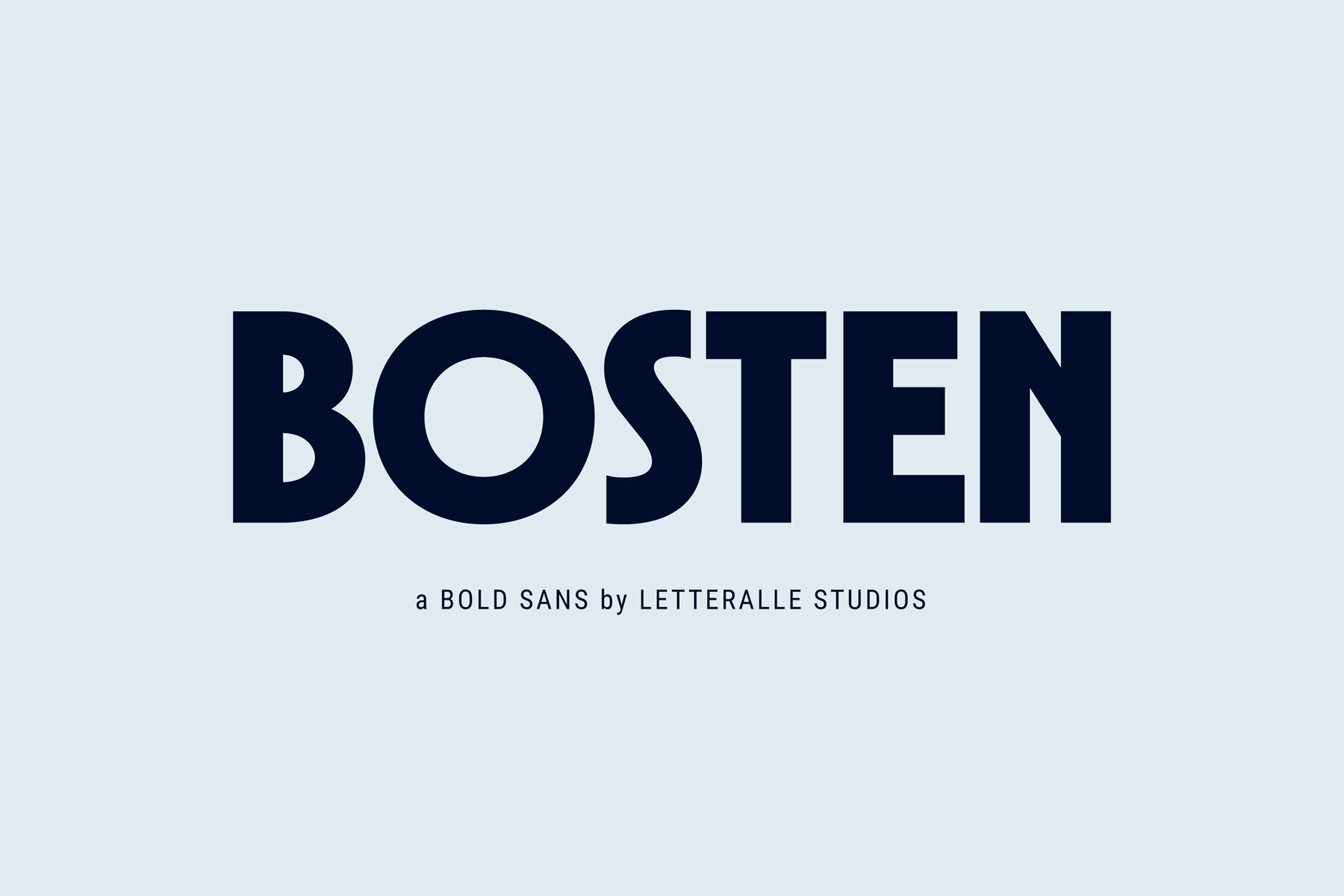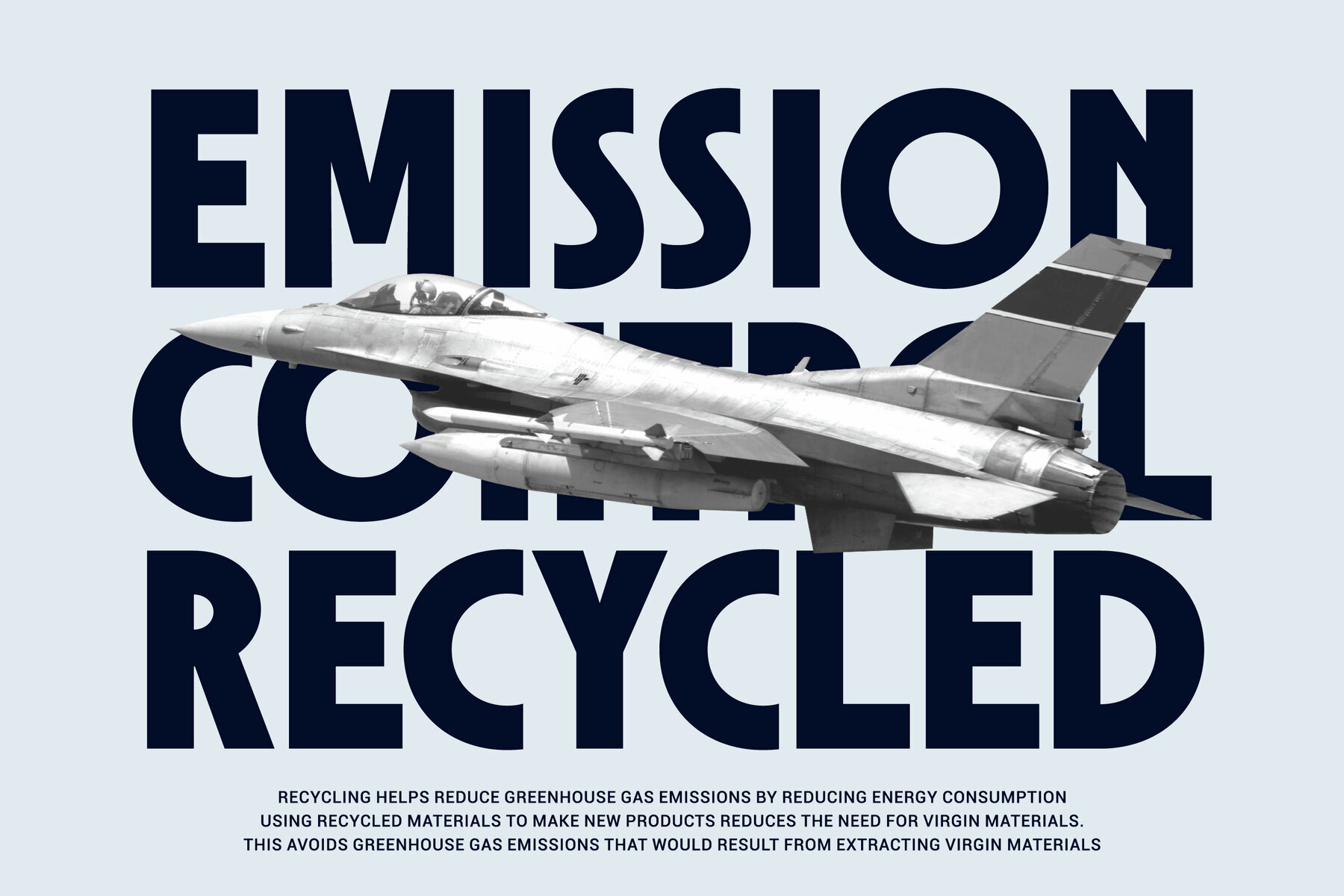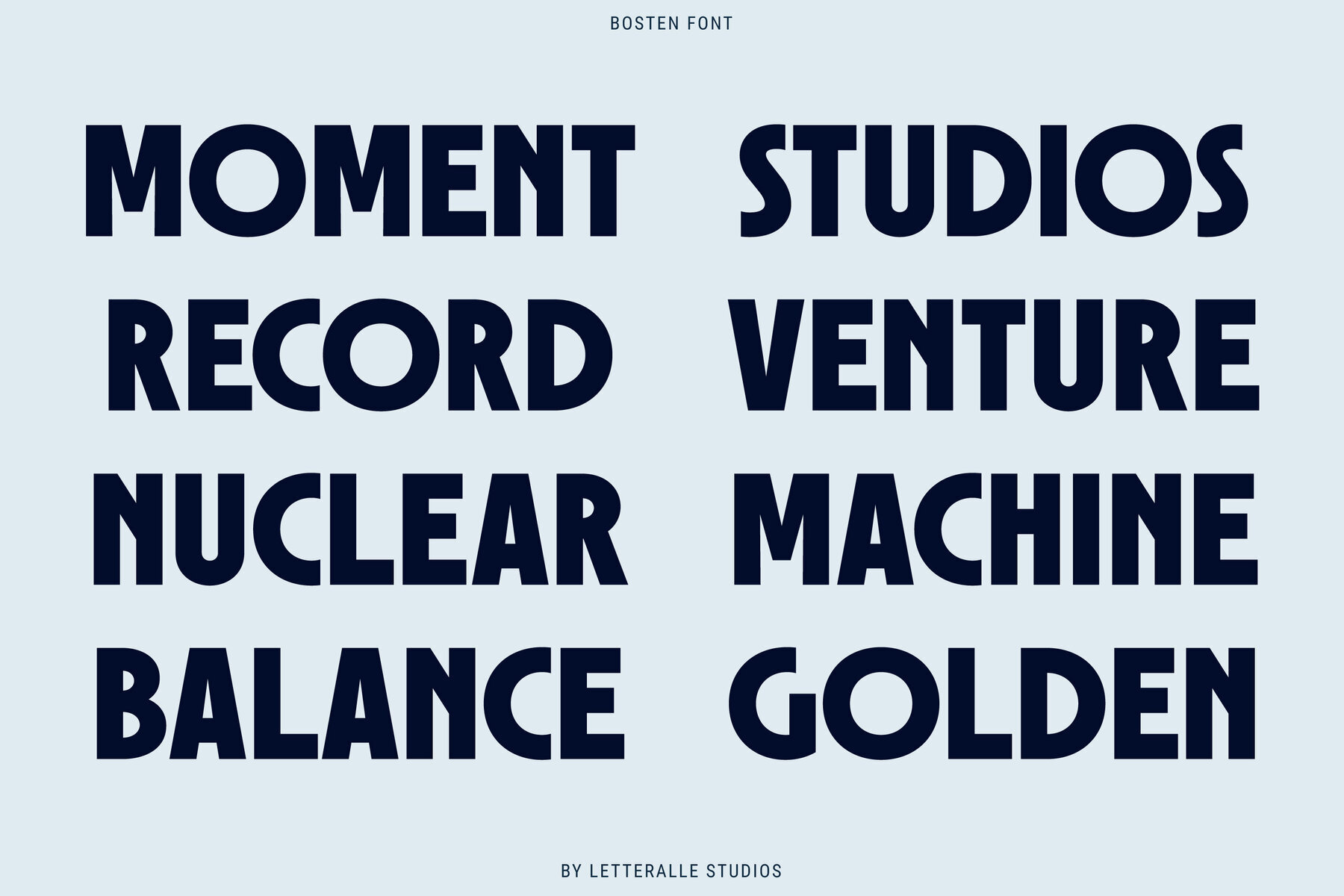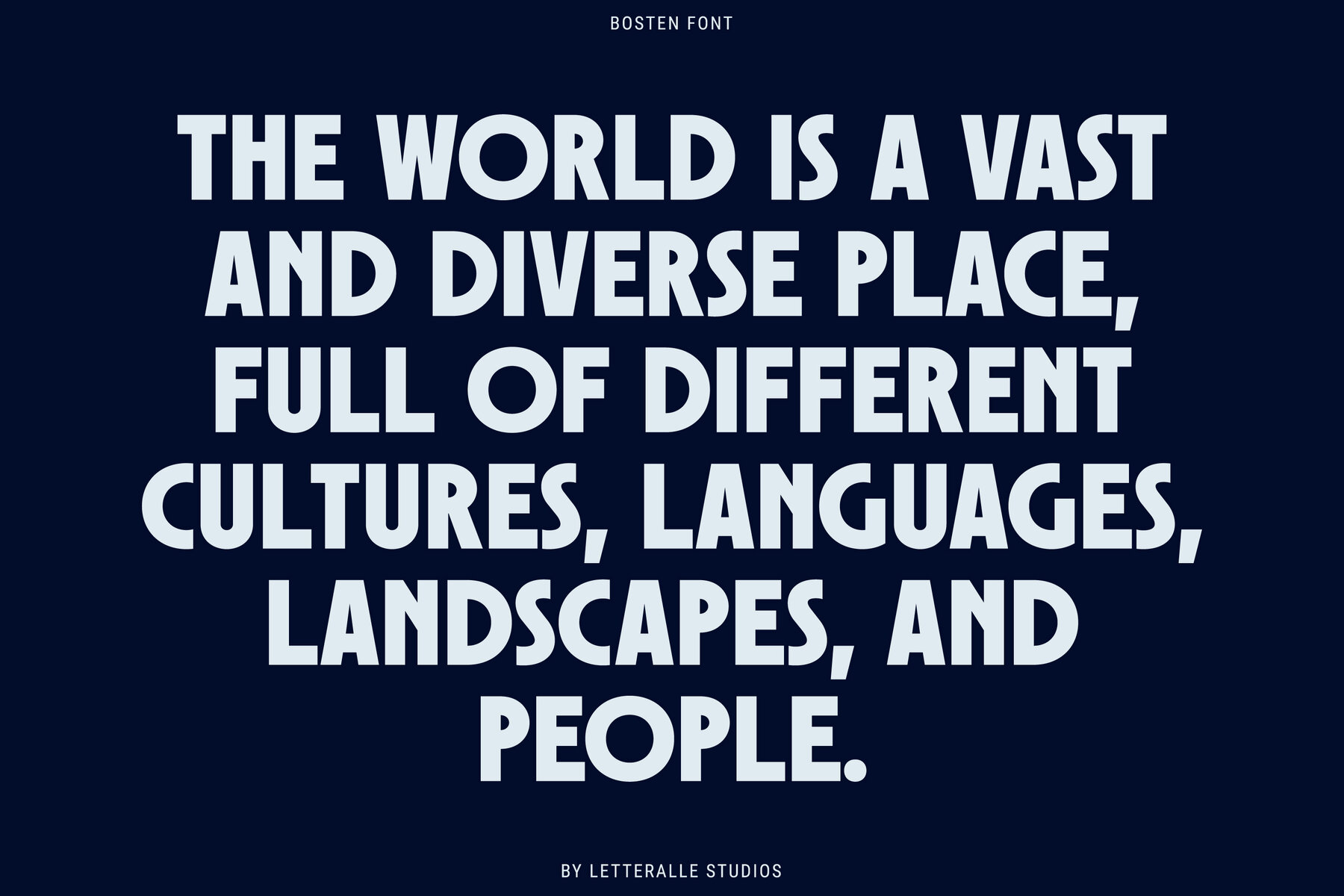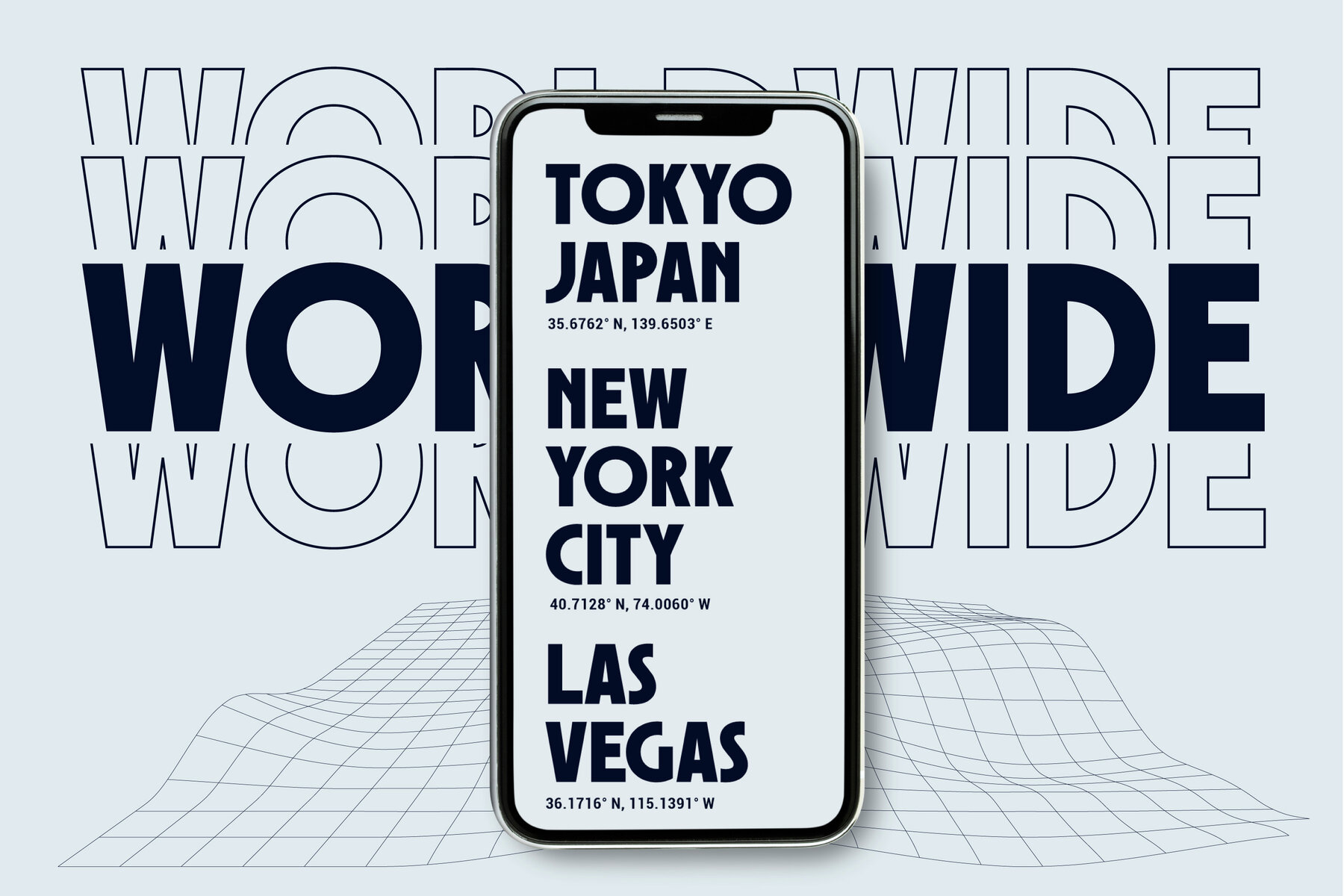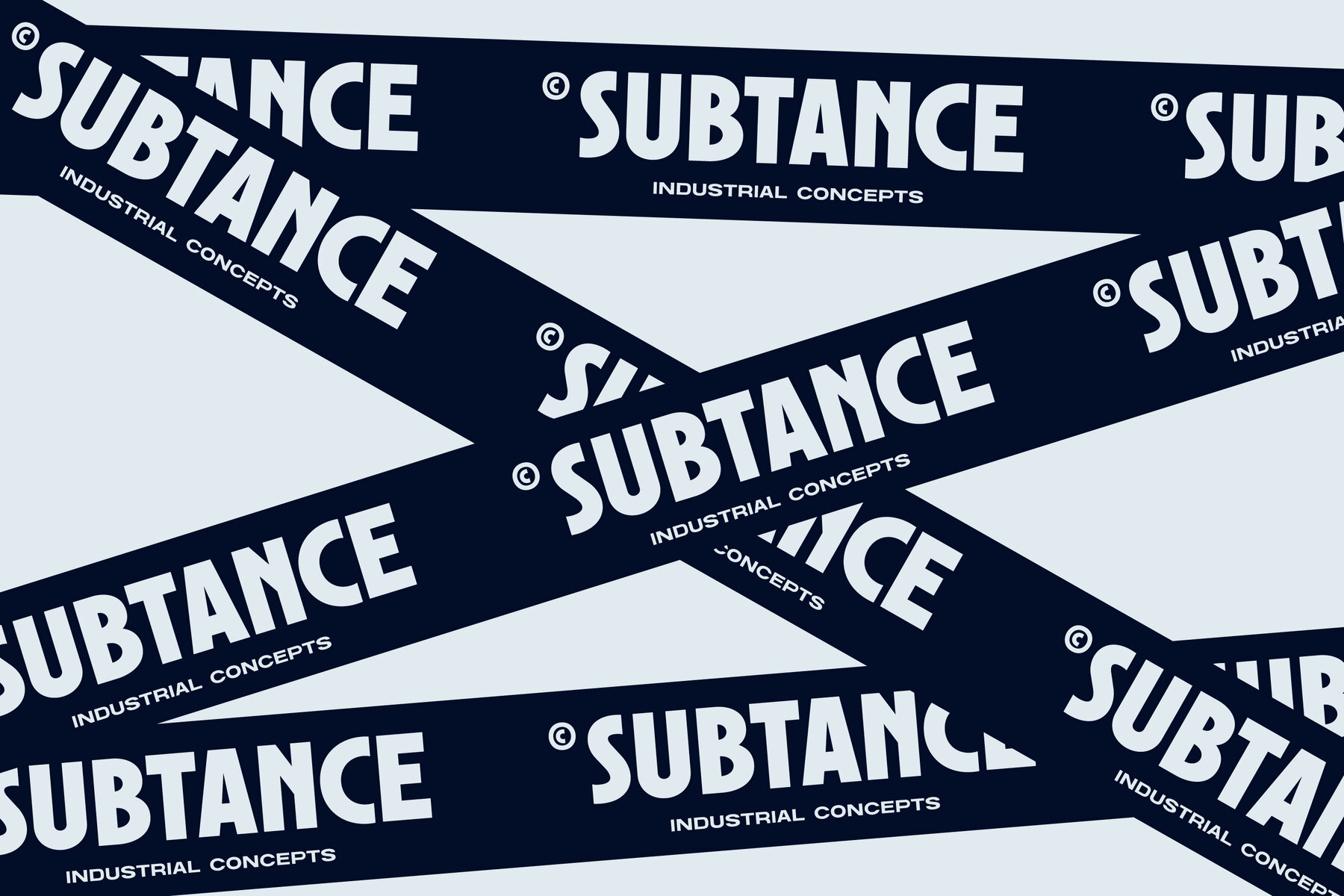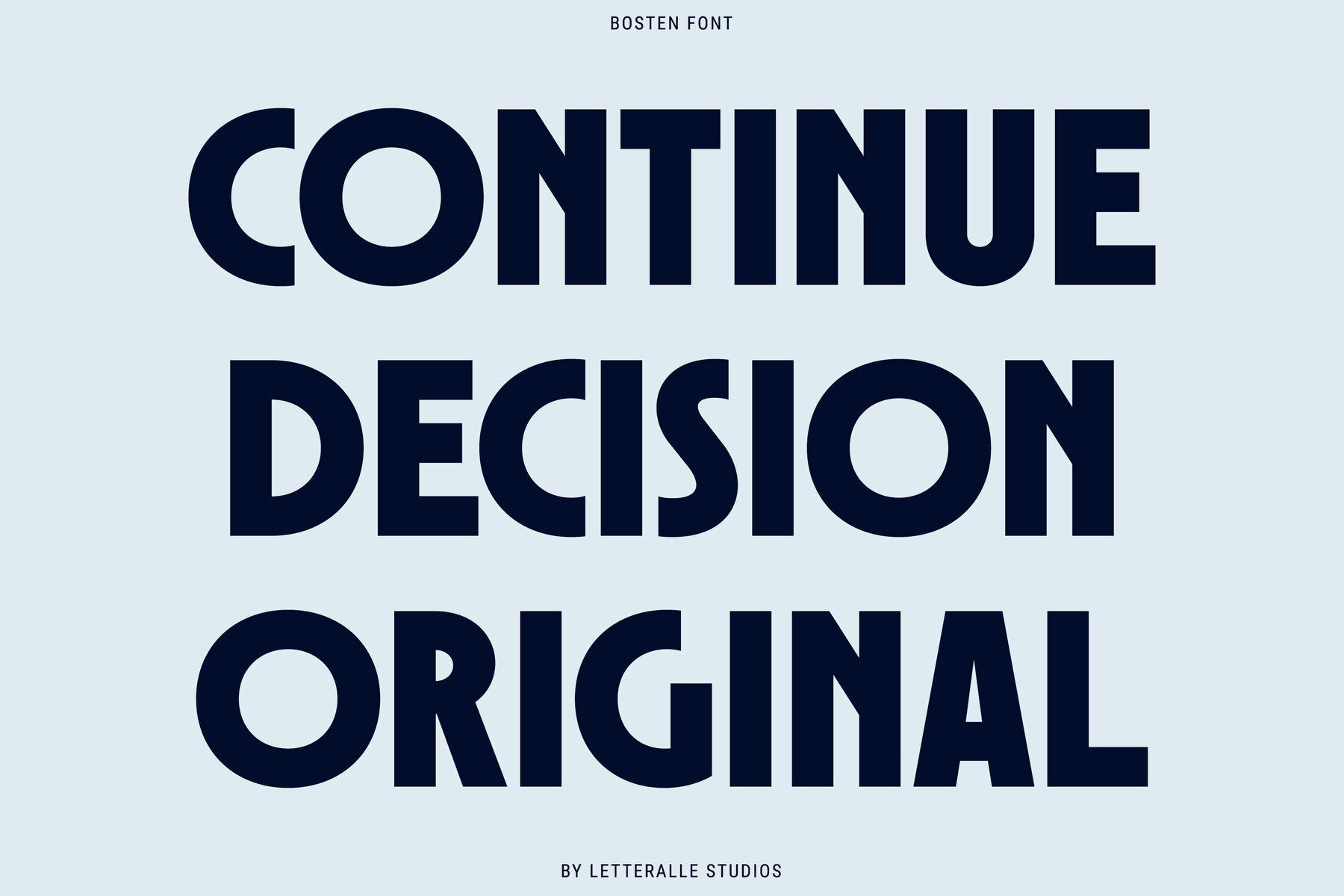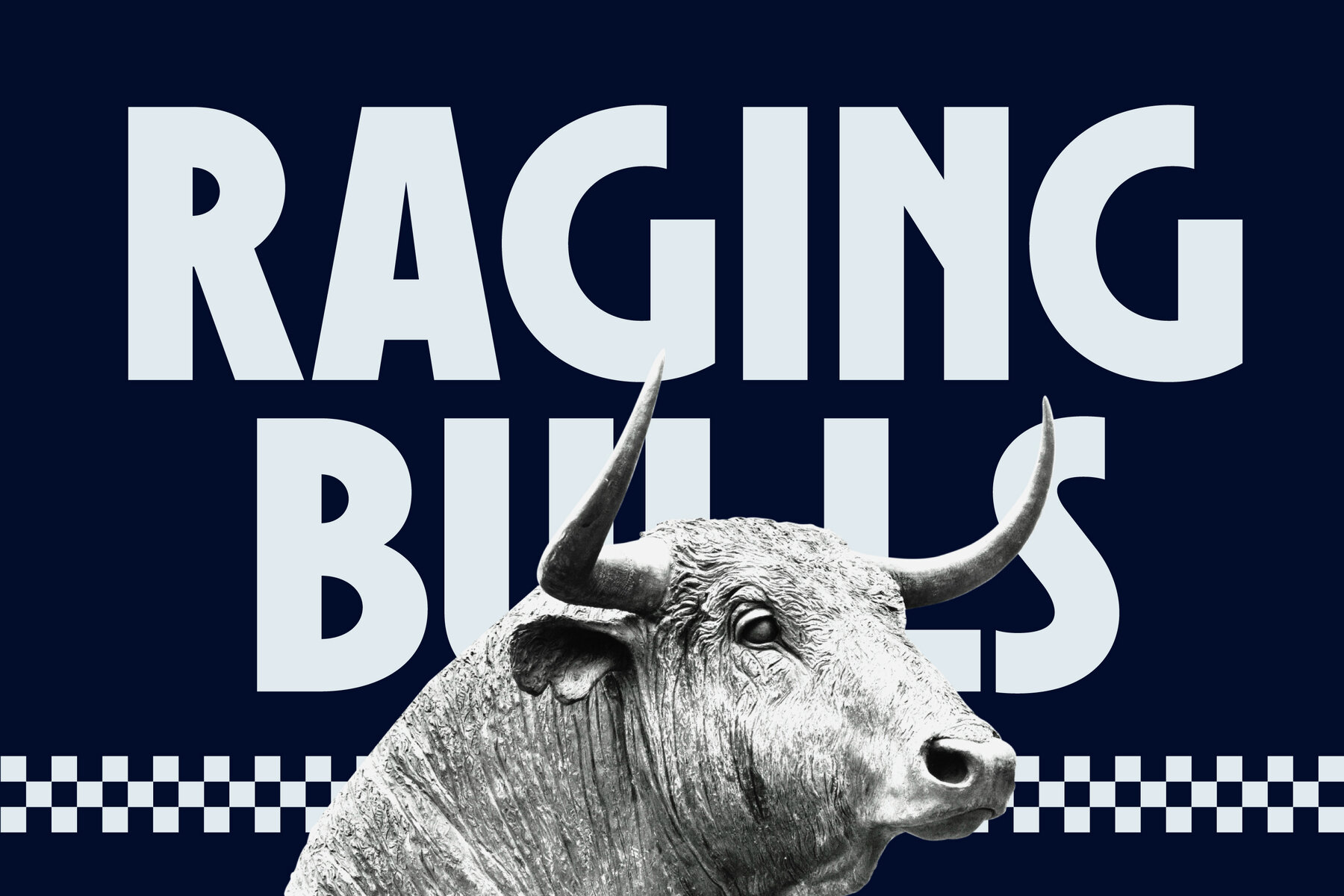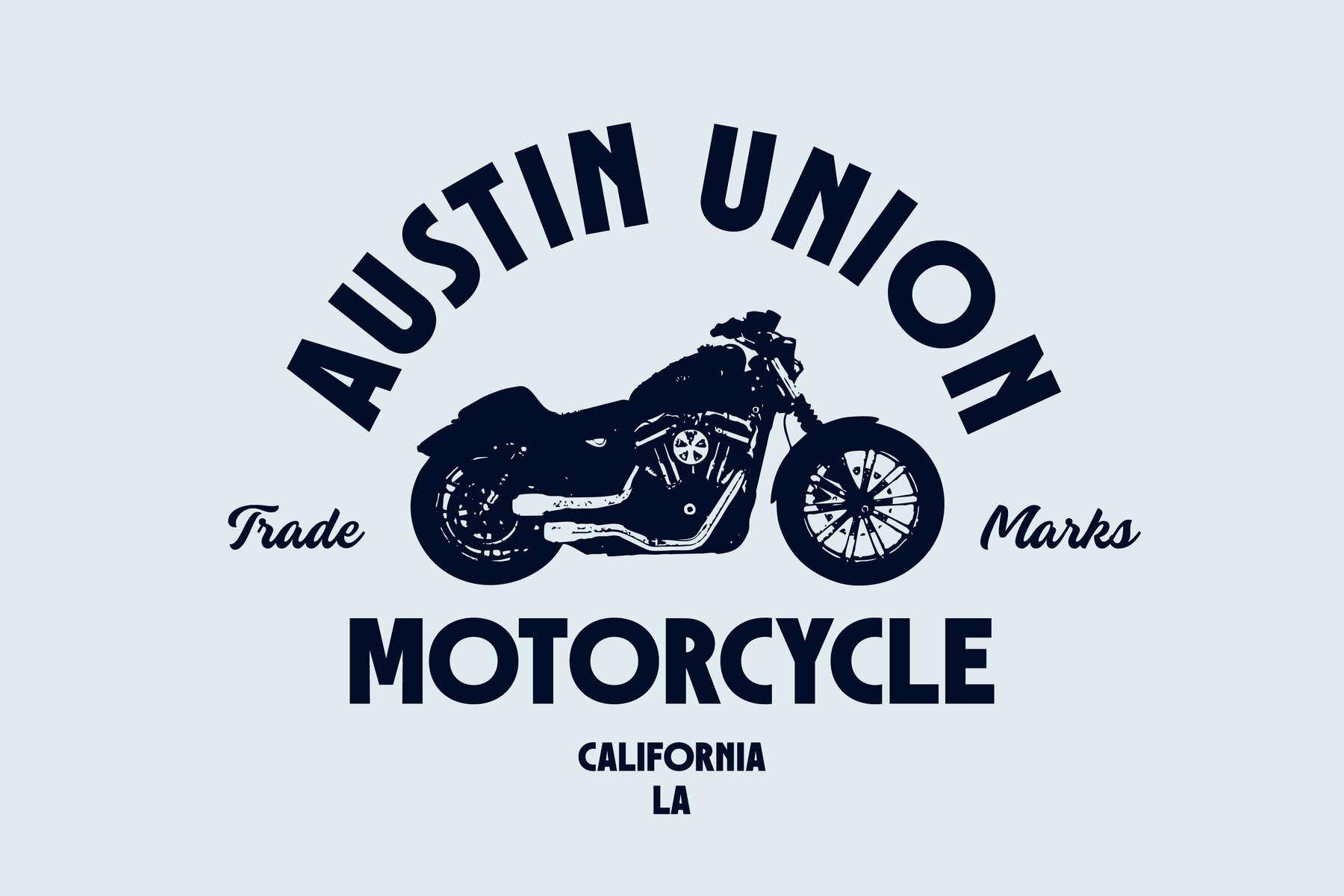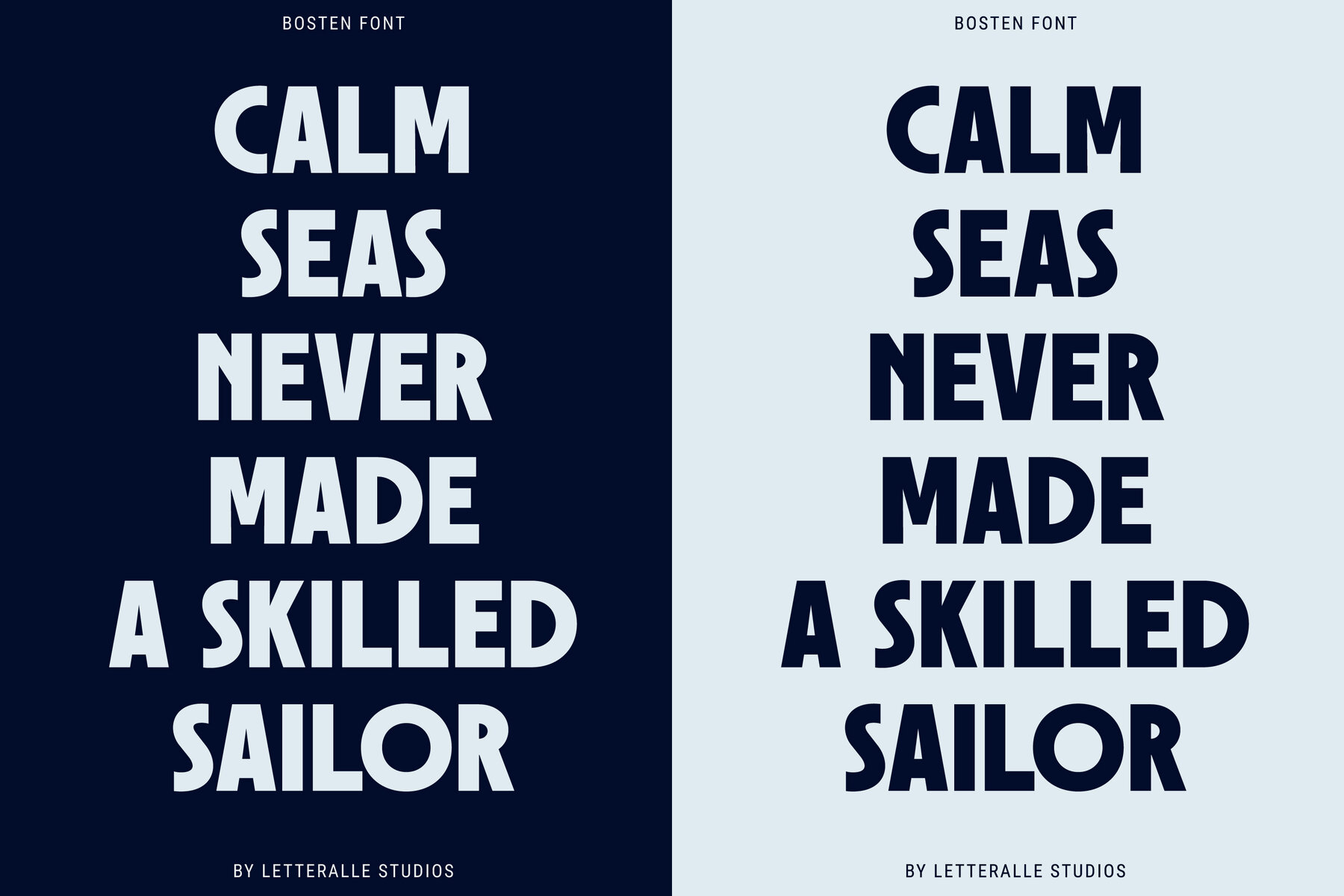
Bosten Font
Bosten Regular
Introducing a perfect addition to your design toolkit: a bold and masculine font that makes a strong impact. With sleek and powerful lines, this typeface is designed to grab your audience’s attention and leave a lasting impression. From headlines to brand messaging, it ensures your text stands out with unmatched visual appeal.
This font isn’t just visually stunning; it’s also user-friendly and compatible with all major design software. Whether you’re working on marketing materials, website design, logos, packaging, advertisements, or merchandise, this font is your go-to choice for professional and effective design. Elevate your branding efforts with a typeface that promises to make your message clear and memorable.